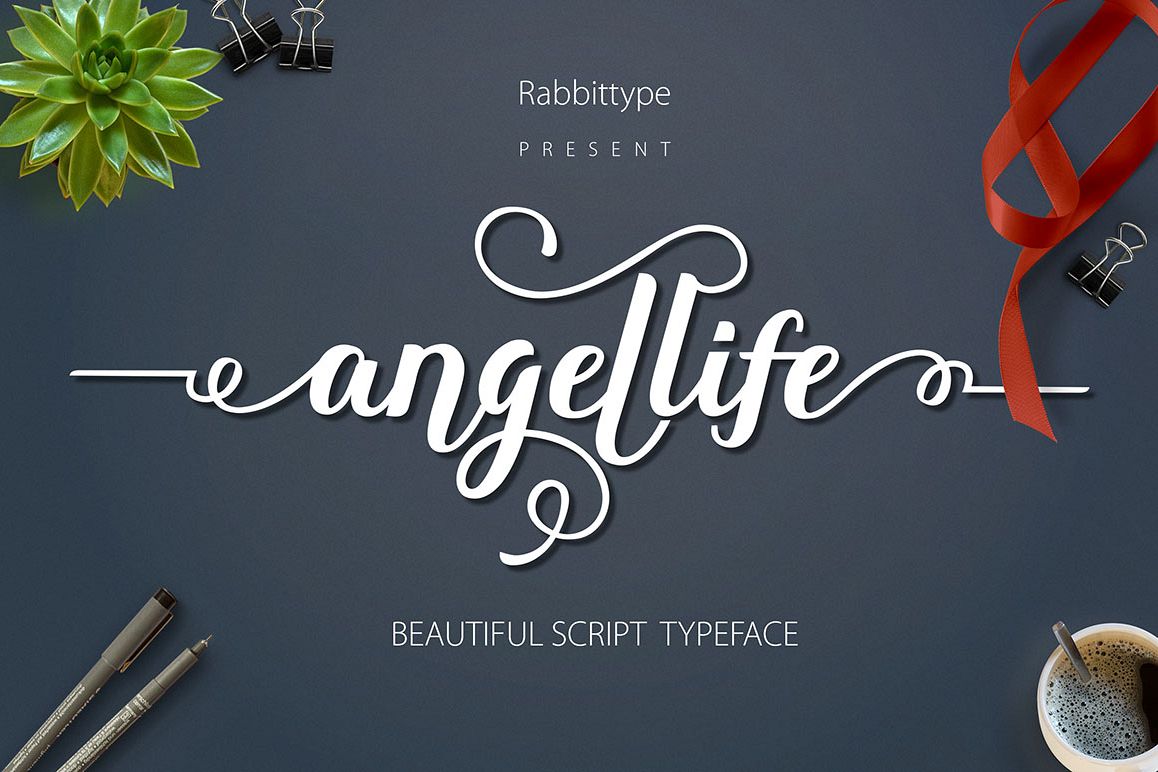
ANGELLIFE Beauty Script
ANGELLIFE.
Angellife is a beautiful Script, It suitable for wedding invitation, greeting cards, T-Shirt, Logo or any design that you create.comes with a complete set of standard characters, Alternates, Punctuation, international glyphs & Stylistic Alternates.
UPPERCASE
lowercase
numeral
punctuation
international glyphs
Stylistic Alternates